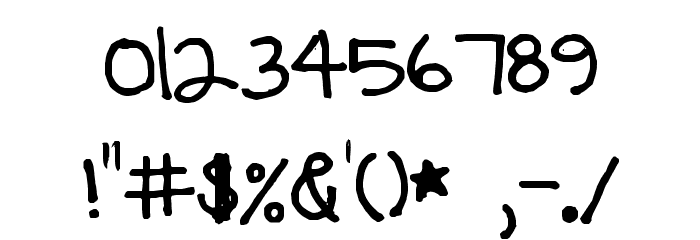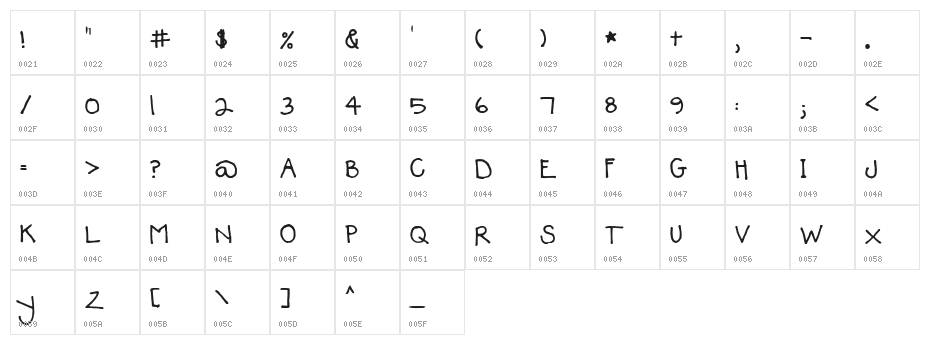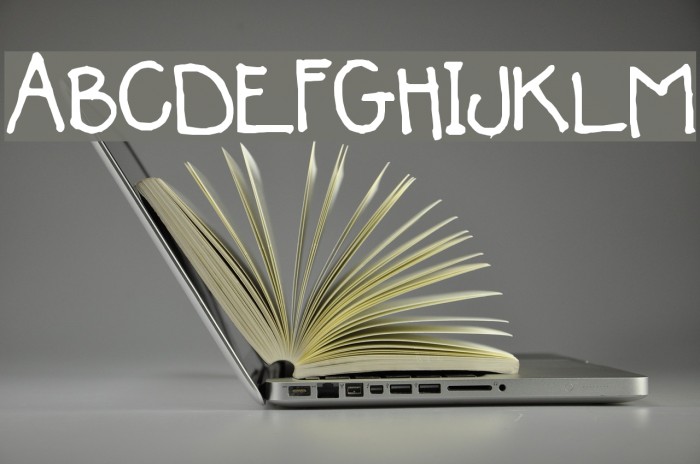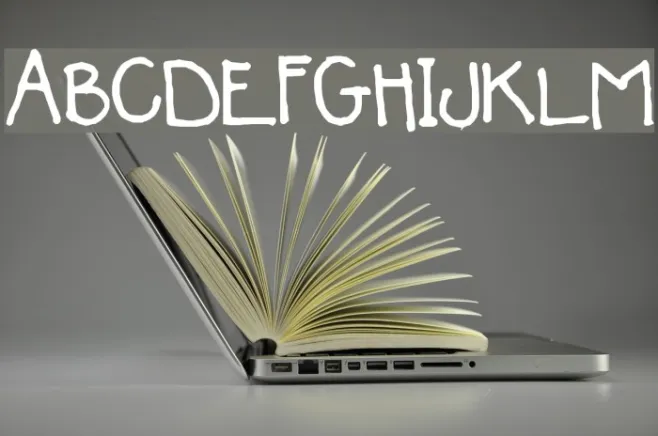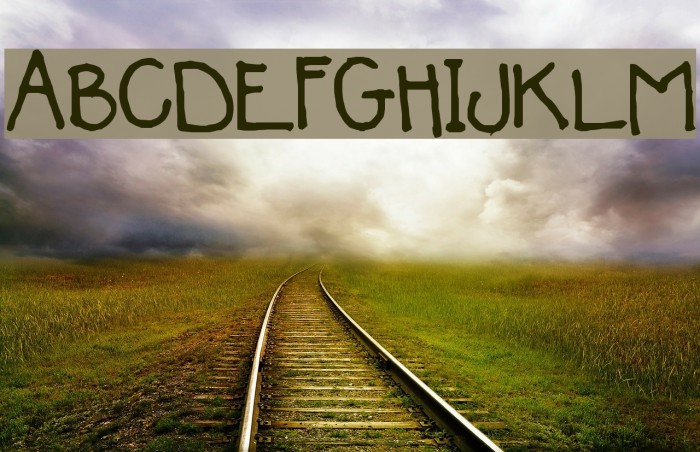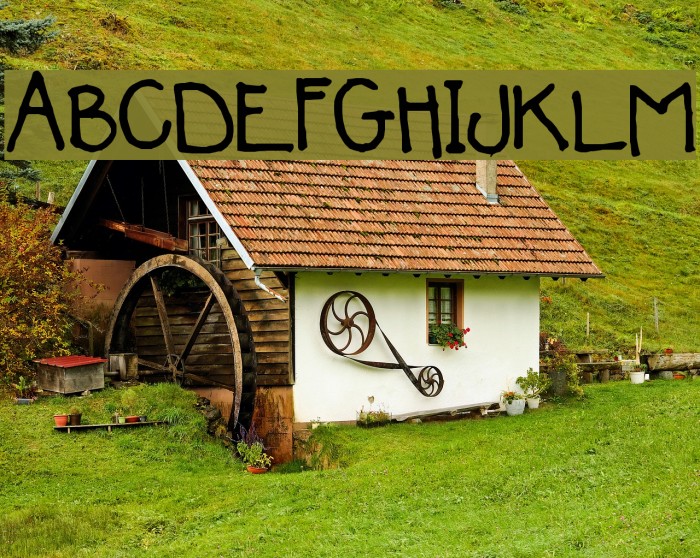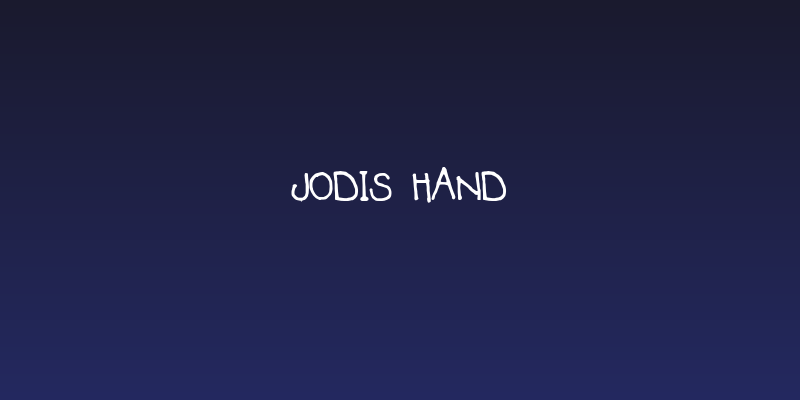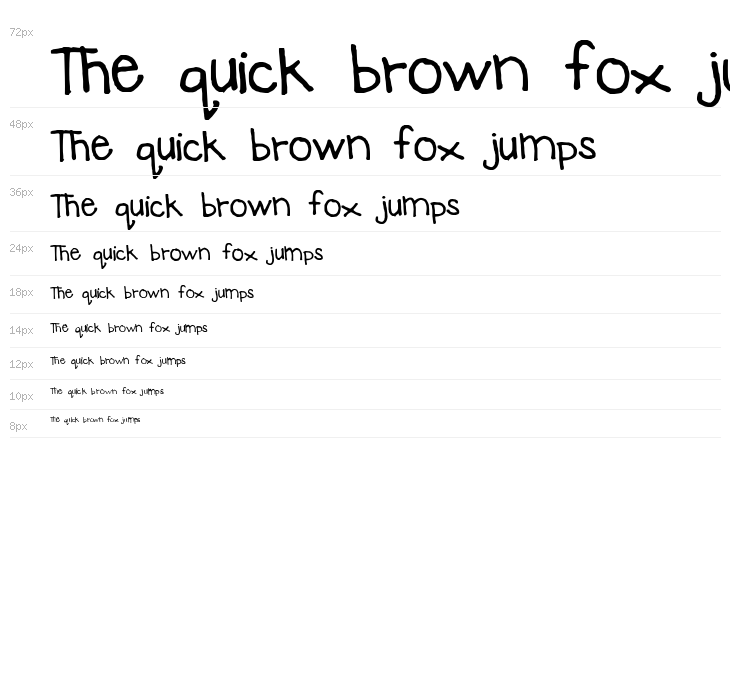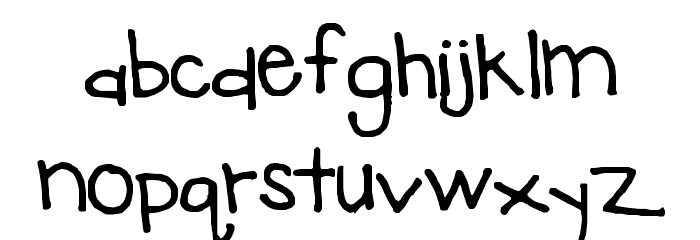
Jodis hand Font
Jodis hand Description
This font exudes a playful and casual handwritten style, characterized by its irregular and organic strokes that mimic the natural flow of handwriting. The letters are slightly uneven, adding to the charm and authenticity of the design. The uppercase and lowercase letters maintain a consistent style, with a whimsical touch that makes the font feel approachable and friendly. The numerals and special characters follow the same informal aesthetic, ensuring a cohesive look across all text elements. This font is perfect for projects that require a personal and informal touch, such as greeting cards, invitations, or children's book illustrations.
Overall StyleCasual, Playful
Use CaseHeadlines, Informal text, Creative projects
Proposed ProjectsIdeal for greeting cards, invitations, children's books, and casual branding.